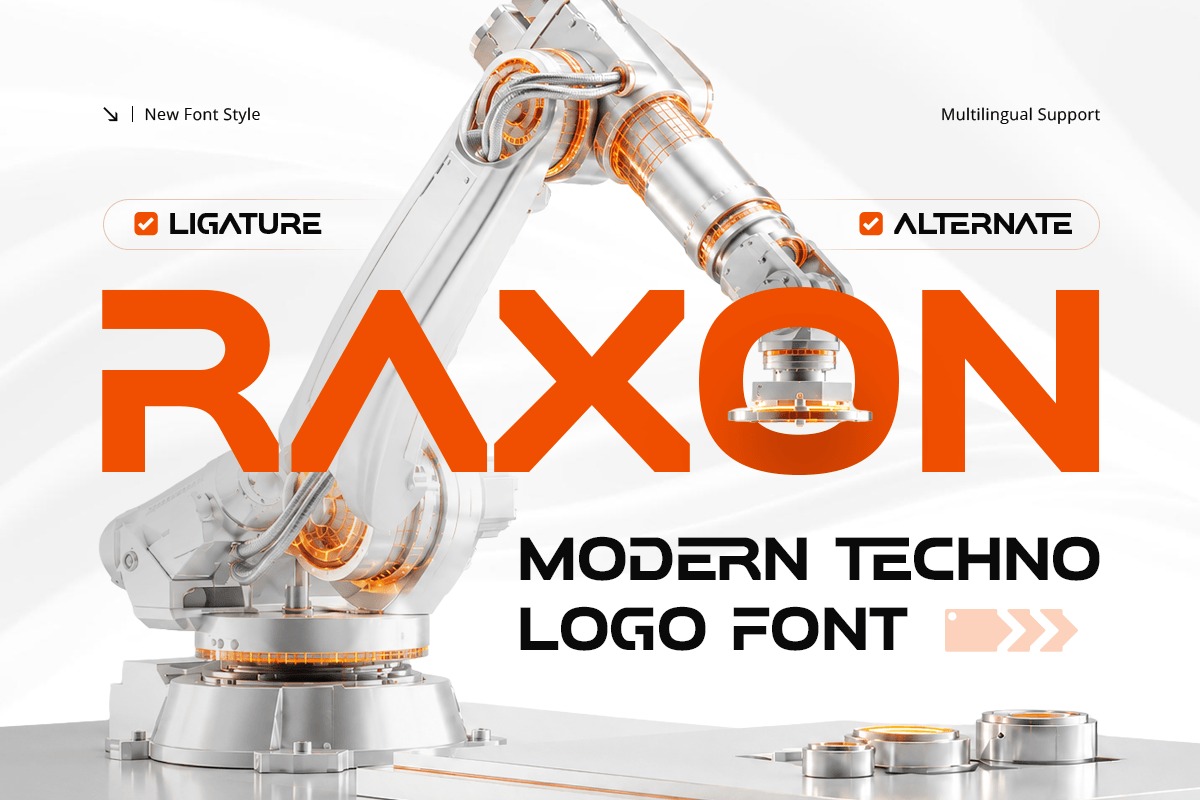
Raxon – Modern Techno Font
Raxon – Modern Techno Font is a futuristic display font designed for technology branding, digital products, startup identities, gaming visuals, and modern logo design. Inspired by cutting-edge innovation, cyber aesthetics, and precision engineering, Raxon combines sleek geometric letterforms with a bold techno style to create memorable and impactful visual identities.
Featuring sharp angular characters, futuristic construction, and modern geometric proportions, Raxon delivers a clean yet powerful appearance that performs exceptionally well across logos, branding systems, user interfaces, marketing materials, and promotional graphics. Its contemporary design communicates innovation, speed, and professionalism while maintaining excellent readability.
Whether you’re launching a technology startup, designing a software logo, creating a gaming brand, or developing digital marketing assets, Raxon provides the modern typography needed to establish a strong and recognizable brand presence.
Raxon Font Features
Character Set: Uppercase, lowercase, numbers, symbols, and punctuation
Modern techno letterforms optimized for logo design and digital branding
OpenType features ready to enhance your design needs
Raxon is Perfect For
Technology startup branding
Modern logo and logotype design
Software and SaaS branding
Gaming and esports visual identities
Digital product and application branding
Website headers and user interface design
Marketing campaigns and promotional graphics
Contemporary display typography